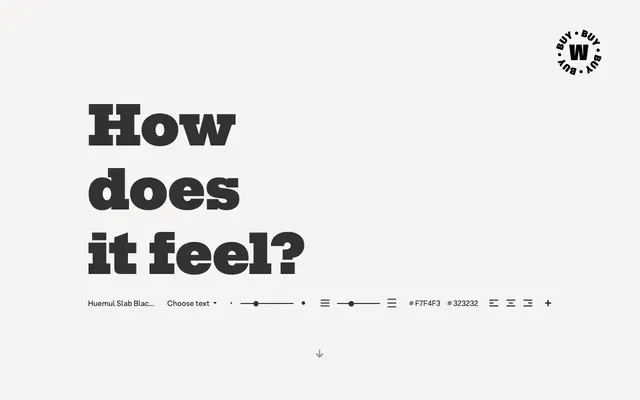
Huemul Slab
A slab serif by Diego Aravena that merges Rockwell's classic letterform character with the more even, wider proportions associated with Clarendon and transitional typefaces.
Designed as a bridge between two slab serif traditions, Huemul Slab takes the structural personality of Rockwell and applies the more uniform, transitional proportions of Clarendon to produce a low-contrast face with aligned cap and x-heights. Four weights from Regular to Black cover the core range without italics or condensed cuts. The result suits display and editorial settings where a contemporary slab is needed without the rigid geometry of a pure Rockwell revival.
Huemul Slab is a low-contrast slab serif that bridges Clarendon's transitional proportions with Rockwell's classic character, placing it between geometric and transitional slab categories but closer to geometric given its aligned heights and even structure.